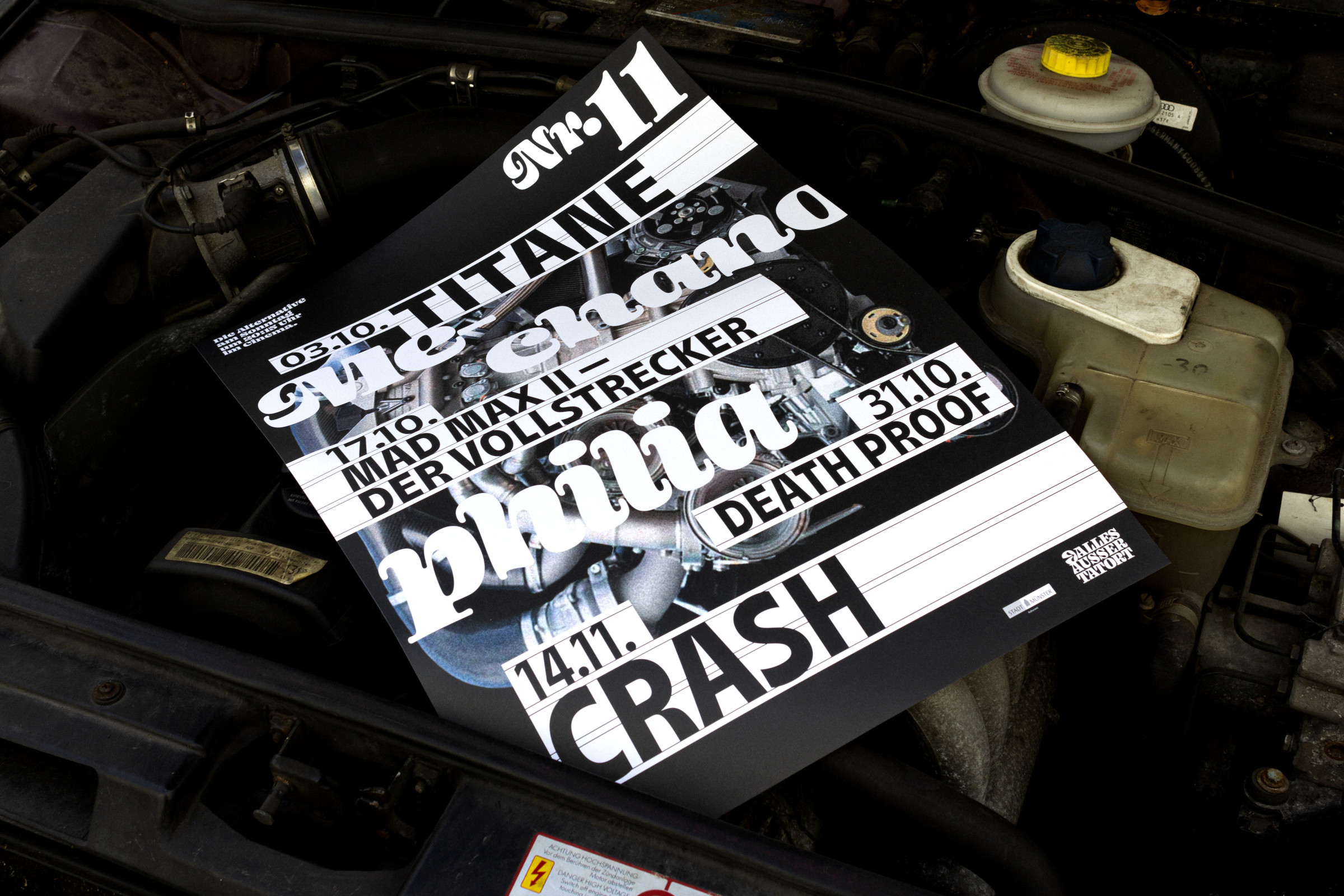
Alles Außer Tatort No. 11
Alles Außer Tatort is a repertory cinema series and exploration of cinematic interactions curated by Anil Jacob Kunnel.
The eleventh season, “Mechanophilia”, is about the sexual attraction between human bodies and metallic cars. The image of an engine provides the background for the typographic design, which is reminiscent of old cinema light panels.
Typeface: Ohno Blazeface by Oh No Type Company
& Agena Display by Coppers and Brassers